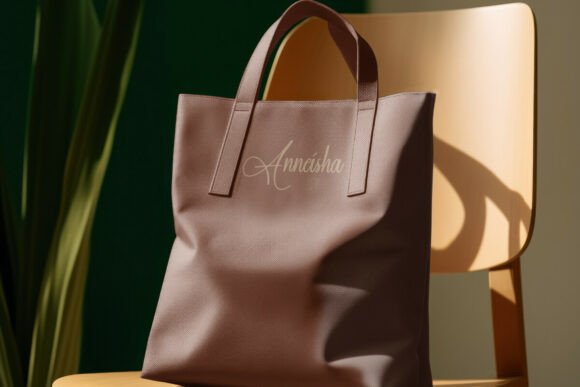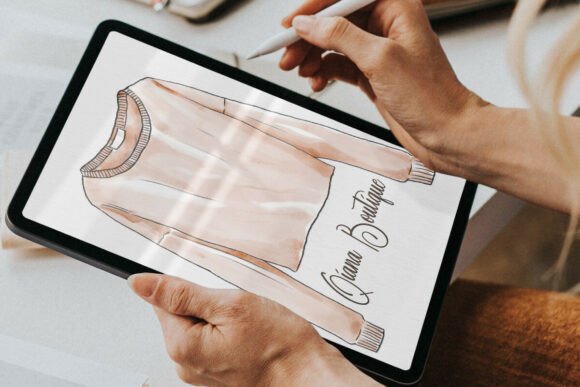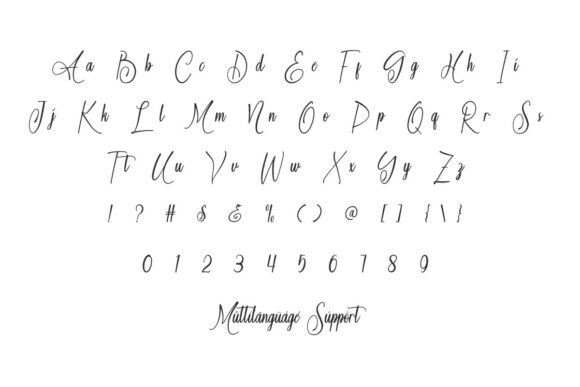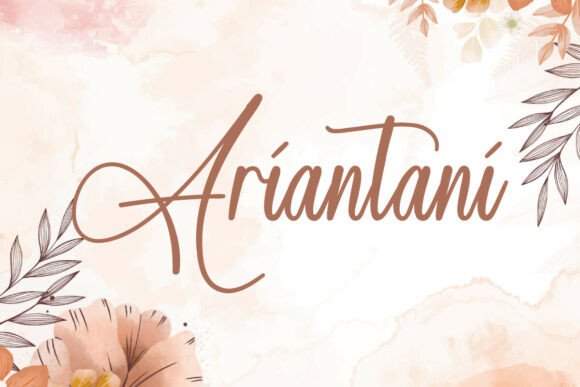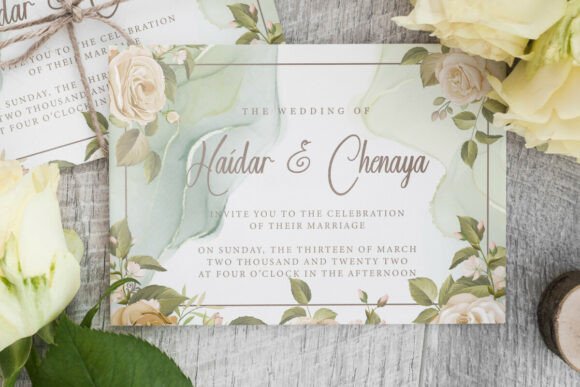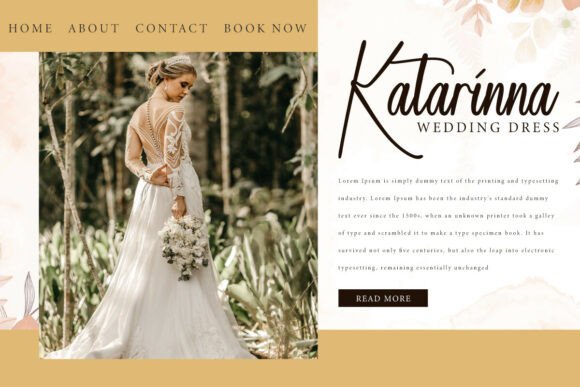
Ariantani Font: Elevate Your Designs with Sophistication and Elegance
In the world of typography, few fonts manage to strike a balance between style and legibility. However, the Ariantani font stands out as a stunning modern calligraphy script that embodies sophistication and elegance. Characterized by its fine, high-contrast strokes and smooth connections, this typeface is perfect for designers and crafters looking to add a touch of luxury to their work.
The Art of Elegance: Key Features of Ariantani Font
The Ariantani font masterfully combines a rapid, artistic flourish with incredible legibility, ensuring that the luxury of its style never compromises its utility. The dynamic flow of the typeface features:
- Elegant swashes that add a touch of drama and sophistication
- Beautiful starting and ending terminals that transform simple words into visually compelling pieces of art
- A vast set of alternates and ligatures, offering designers the freedom to create unique, custom-looking headlines and logos
Perfect for High-End Designs
The Ariantani font is an ideal choice for high-end branding, premium product packaging, wedding stationery, and any design that needs to communicate quality and genuine craftsmanship. Its thin, bold contrast in the letterforms gives the font an air of dramatic flair, making it perfect for influential designs that require a touch of sophistication.
Versatility for Designers and Crafters
Whether you’re a designer looking to create stunning headlines and logos or a crafter seeking to add a personal touch to your work, the Ariantani font offers unparalleled versatility. Its vast set of alternates and ligatures allows designers to:
- Create custom-looking headlines and logos that stand out
- Add a personal touch to their designs, making them more unique and engaging
- Experiment with different styles and combinations to find the perfect fit for their project
Why Choose Ariantani Font?
With so many fonts available, why choose Ariantani? Here are just a few reasons why this stunning modern calligraphy script stands out:
- Unparalleled legibility: Despite its elegant and artistic style, the Ariantani font remains highly legible, making it perfect for a wide range of applications
- Sophistication and elegance: The Ariantani font exudes luxury and refinement, making it perfect for high-end designs and applications
- Versatility: With its vast set of alternates and ligatures, the Ariantani font offers designers and crafters the freedom to create unique and custom-looking designs
In conclusion, the Ariantani font is a stunning modern calligraphy script that offers designers and crafters a unique combination of style, elegance, and legibility. Its fine, high-contrast strokes, smooth connections, and elegant swashes make it perfect for high-end branding, premium product packaging, wedding stationery, and any design that needs to communicate quality and genuine craftsmanship. With its vast set of alternates and ligatures, the Ariantani font offers unparalleled versatility, making it an ideal choice for designers and crafters looking to elevate their work and add a touch of sophistication.
Get Ready to Elevate Your Designs with Ariantani Font
Whether you’re a seasoned designer or a crafty DIY enthusiast, the Ariantani font is sure to take your work to the next level. So why wait? Discover the power of Ariantani and elevate your designs with sophistication, elegance, and style.